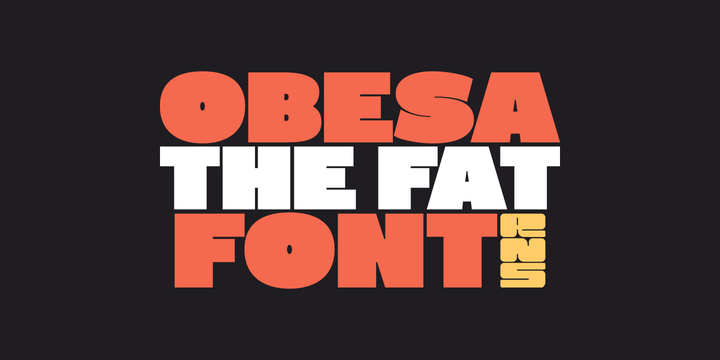
RNS Obesa
by RNS Fonts
RNS Obesa it’s a Display fat font, plumper and chubby with a minimal counterpunch to achieve a black color for heavy compositions, completely full of curves and expressive sharp vertices makes it the perfect companion to poster design. A playful strong personality with attractive curves.